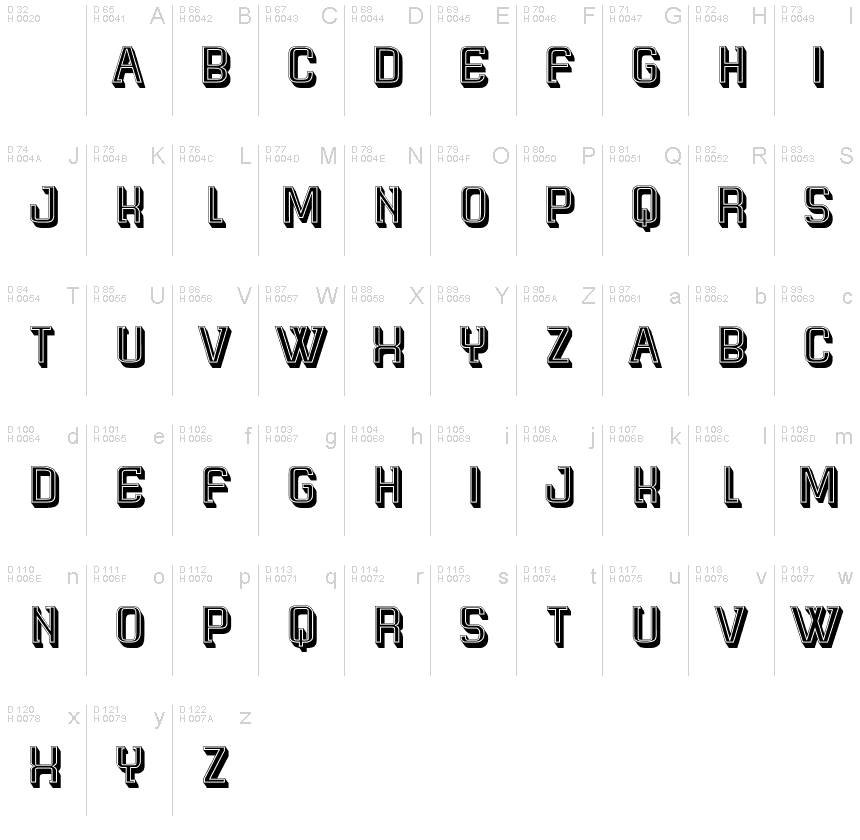
Samuray Regular
Introducing Samuray, a bold 3D retro display font created by Vladimir Nikolic. This unique typeface is perfect for creating stand-out logos, titles and posters with a vintage feel. It's also great for designing attention-grabbing album covers, book covers and game interfaces.